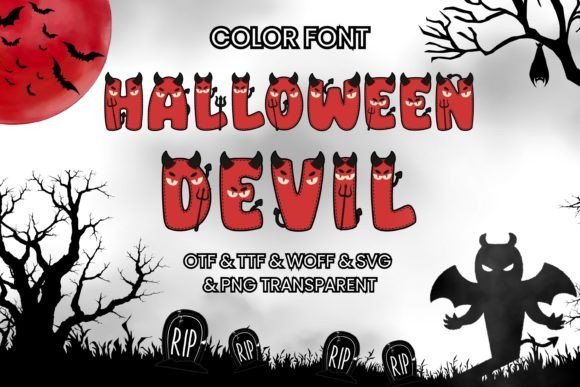
Unleash the Magic of Halloween Season with the Perfect Font
It’s that time of the year again when creativity knows no bounds, and imagination runs wild. You’re probably browsing through countless design ideas, searching for the perfect font to capture the essence of Halloween. The spooky atmosphere, the eerie sounds, and the vibrant colors all blend together to create an enchanting experience. But, have you found the perfect companion to elevate your designs to the next level?
Introducing the Halloween Devil Font, a vibrant and playful color font that will add a touch of magic to your Halloween-themed designs. This captivating font is not just limited to a specific use; it effortlessly melds with various projects, including t-shirt designs, digital imprints, craft creations, and decorative cards. With the Halloween Devil Font, you’ll be able to create mesmerizing masterpieces that will leave a lasting impression on your audience.
- Unique Characteristics: The Halloween Devil font features a unique, hand-drawn design with intricate details and bold lines, giving it a spooky and eerie feel.
Halloween Devil Font Review
I recently had the chance to work with the Halloween Devil Font, and I must say it’s a unique addition to any project. ✨ The first thing that caught my attention was the quirky, playful feel it brings to designs. The font’s asymmetrical shapes and bold lines add a touch of darkness and mystery, perfect for Halloween-themed projects or anything that needs a bit of an edgy vibe.
Here are some of the font’s strengths:
- ✨ Unique and recognizable: The font’s distinct design makes it easy to identify and sets it apart from more common fonts.
- ✨ Versatile: While it’s perfect for Halloween projects, the font’s versatility allows it to be used in a wide range of designs, from horror movies to edgy fashion brands.
- ✨ Highly customizable: The font’s bold lines and asymmetrical shapes make it easy to customize and modify to fit any design style.
- ⚠️ Limited legibility: The font’s bold lines and complex shapes can make it difficult to read, especially in smaller font sizes.
Overall, the Halloween Devil Font is a great choice for designers who want to add a touch of darkness and mystery to their projects. While it has some limitations, its unique design and versatility make it a valuable addition to any design library.
Use the Halloween Devil Font to create spooky and eerie text effects for Halloween-themed designs, such as invitations, posters, and social media graphics. Experiment with different font sizes and styles to create a dramatic effect.